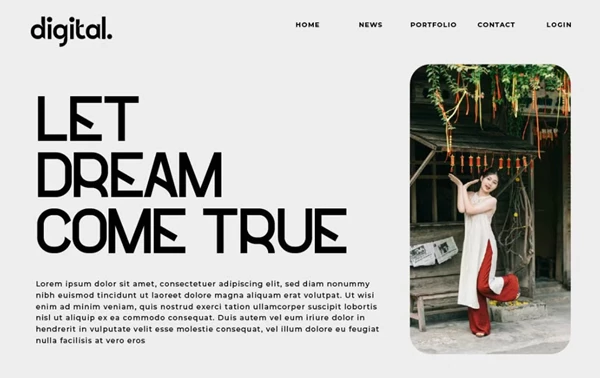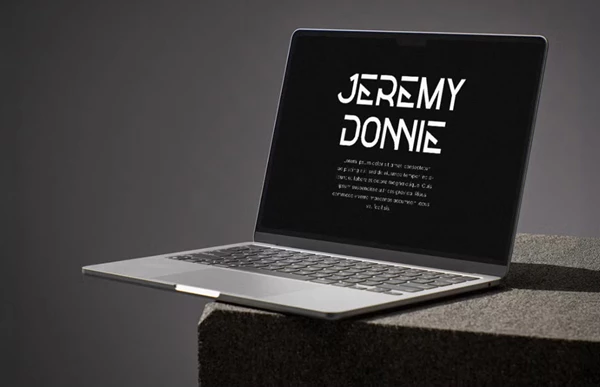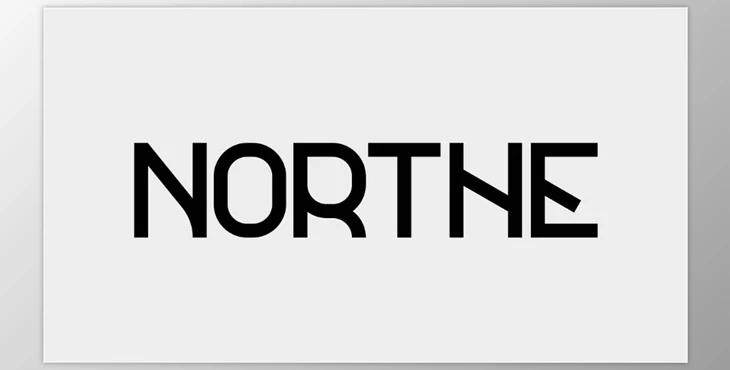
Northe Trendy Logo Font:
Northe Trendy Logo Font is a modern sans serif typeface designed specifically for brands that value precision and sophistication. Northe will surely compliment your creative work since its proportions are carefully balanced, and its lines, as well as curves, are modern and elegant. Northe is the perfect match for any project that requires fonts such as logos, headlines, or even classy packaging designs.
With Northe, you can create classy vintage logos for products and weddings, clothing brand logos, and unique wedding logos. Northe’s adaptability can satisfy any designer’s requirements, which makes it a very advantageous font choice.
- Provides a broad selection of glyphs.
- Provides alternates and ligatures for additional creativity.